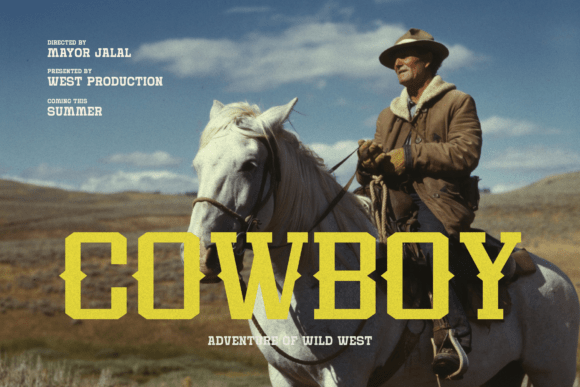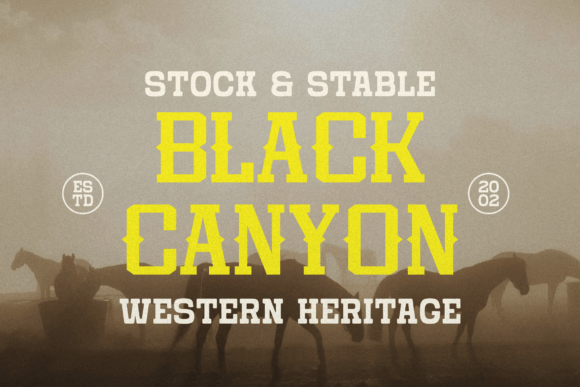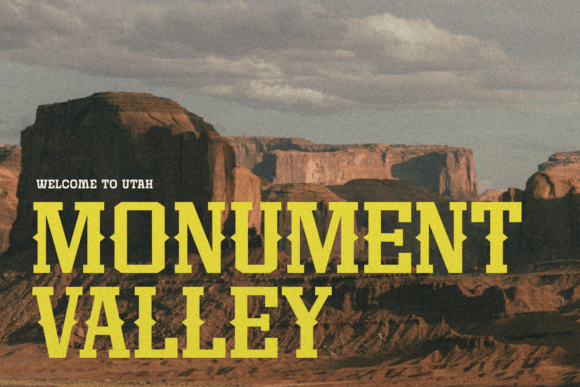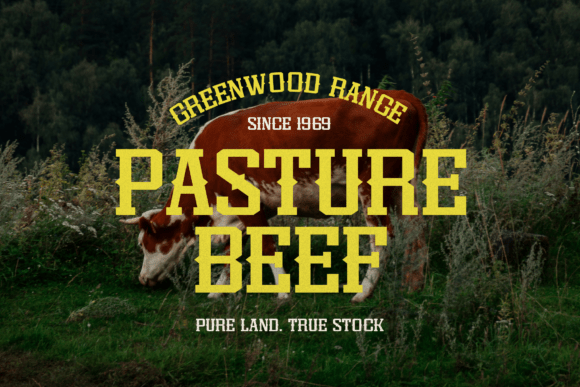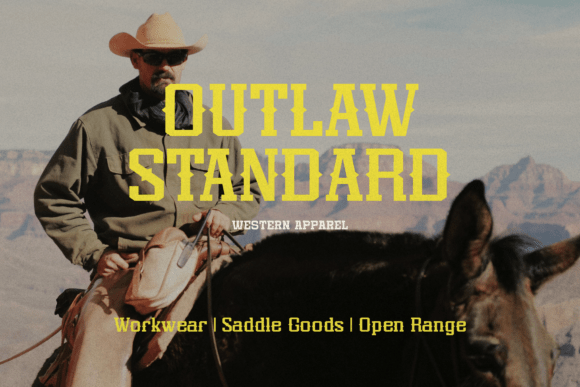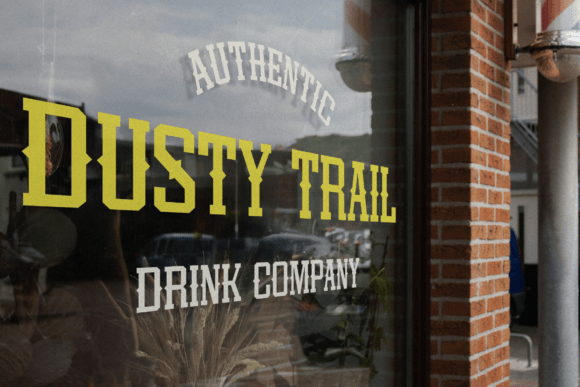
Unleash the Wild West Spirit with Dupreh Forge Font
In the realm of typography, few fonts capture the essence of the Wild West as effectively as Dupreh Forge. This powerful slab serif font is designed to make an impact, boasting sharp spurs and sturdy block structures that evoke the rugged spirit of the American frontier. Whether you’re a designer, craft brewer, or filmmaker, Dupreh Forge is the perfect choice for projects that demand a sense of heritage and durability.
The Inspiration Behind Dupreh Forge
Dupreh Forge draws inspiration from the rough-riding cowboys and lawmen of the Wild West. Its sharp spurs and blocky structures are reminiscent of the rugged terrain and unforgiving landscape of the American West. The font’s design is rooted in the idea of resilience and strength, making it an ideal choice for projects that require a bold and unapologetic aesthetic.
Key Features of Dupreh Forge
- Sharp Spurs: Dupreh Forge’s sharp spurs add a touch of ruggedness to any design, evoking the sharp edges and rough-riding spirit of the Wild West.
- Sturdy Block Structures: The font’s blocky structures provide a sense of solidity and durability, making it perfect for headlines, titles, and branding projects.
- Slab Serif Design: Dupreh Forge’s slab serif design adds a touch of sophistication to its rugged aesthetic, making it suitable for a wide range of applications.
Perfect for Branding and Design Projects
Dupreh Forge is more than just a font – it’s a design statement. Its bold and rugged aesthetic makes it perfect for branding projects, posters, rugged apparel, and cinematic titles. Whether you’re crafting a logo for a craft brewery or designing a bold editorial layout, Dupreh Forge brings an undeniable sense of heritage and durability to the page.
Use Cases for Dupreh Forge
- Branding: Use Dupreh Forge to create bold and eye-catching logos for your business or product.
- Posters: Create striking posters for events, promotions, or advertising campaigns with Dupreh Forge’s rugged aesthetic.
- Rugged Apparel: Design bold and eye-catching apparel for outdoor enthusiasts, cyclists, or music festivals with Dupreh Forge.
- Cinematic Titles: Add a touch of Wild West flair to your film or video project with Dupreh Forge’s powerful and rugged font.
Tips for Using Dupreh Forge Effectively
- Experiment with Font Sizes: Dupreh Forge is designed to make an impact, so don’t be afraid to experiment with different font sizes to create visual hierarchy.
- Pair with Contrasting Fonts: Pair Dupreh Forge with contrasting fonts to create visual interest and add depth to your design.
- Use in Combination with Images: Use Dupreh Forge in combination with images or illustrations to create a bold and eye-catching design.
Dupreh Forge is a powerful slab serif font that’s perfect for designers, crafters, and filmmakers looking to capture the rugged spirit of the Wild West. With its sharp spurs, sturdy block structures, and slab serif design, Dupreh Forge is built for more than just headlines – it’s a design statement. Whether you’re crafting a logo, designing a poster, or creating a cinematic title, Dupreh Forge brings an undeniable sense of heritage and durability to the page.